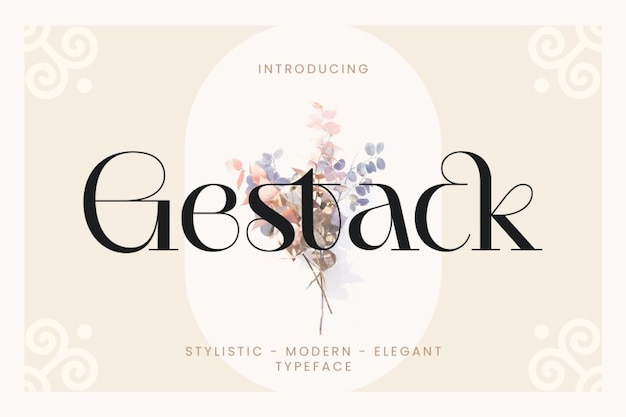
Gestack
Gestack Font
Elegant and eye-catching, the Gestack font is the real deal with its elegant detailing. With a stylistic curve and strong lettering, this font is perfect for taking your projects to the next level. You can download it now.